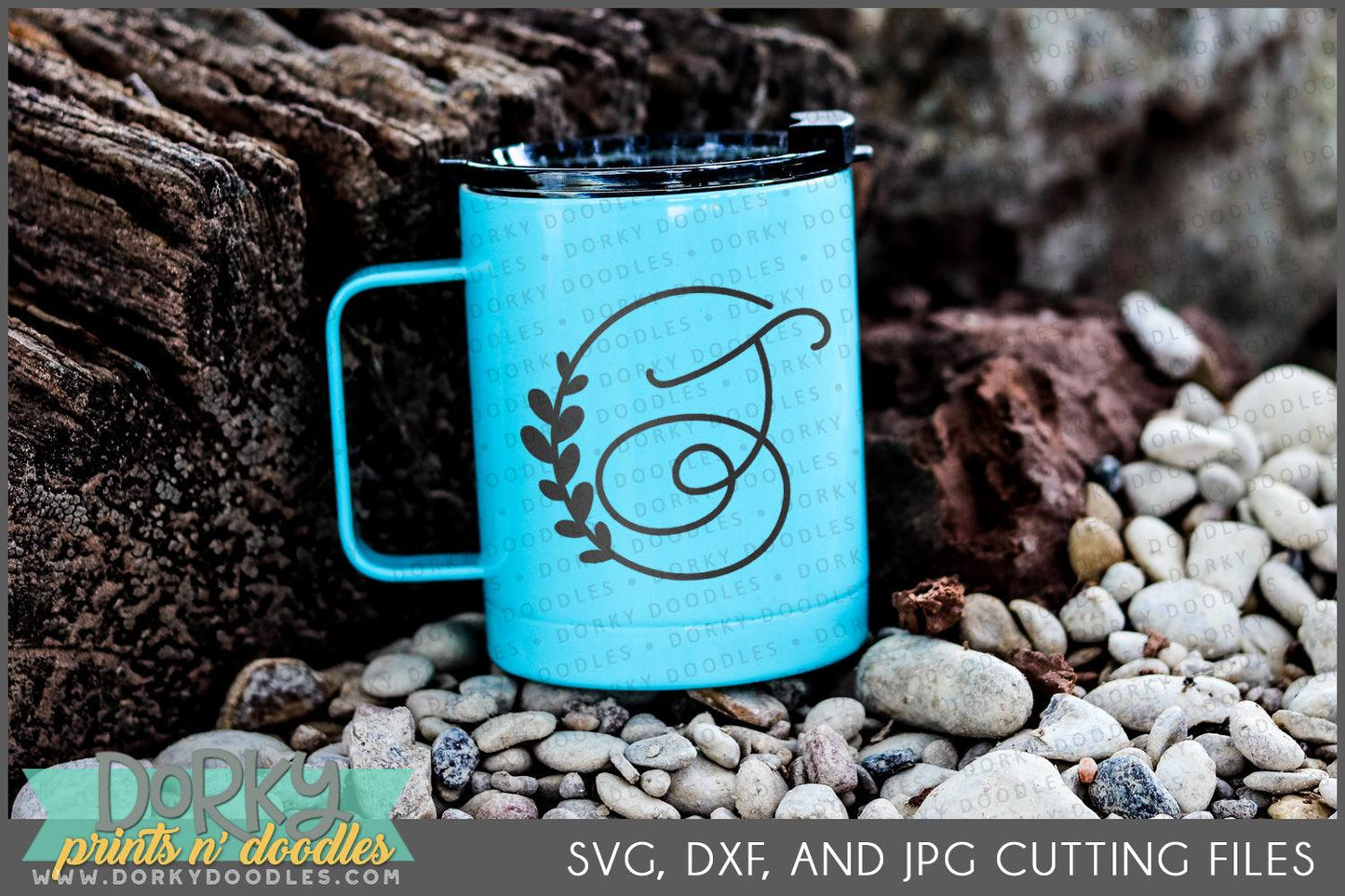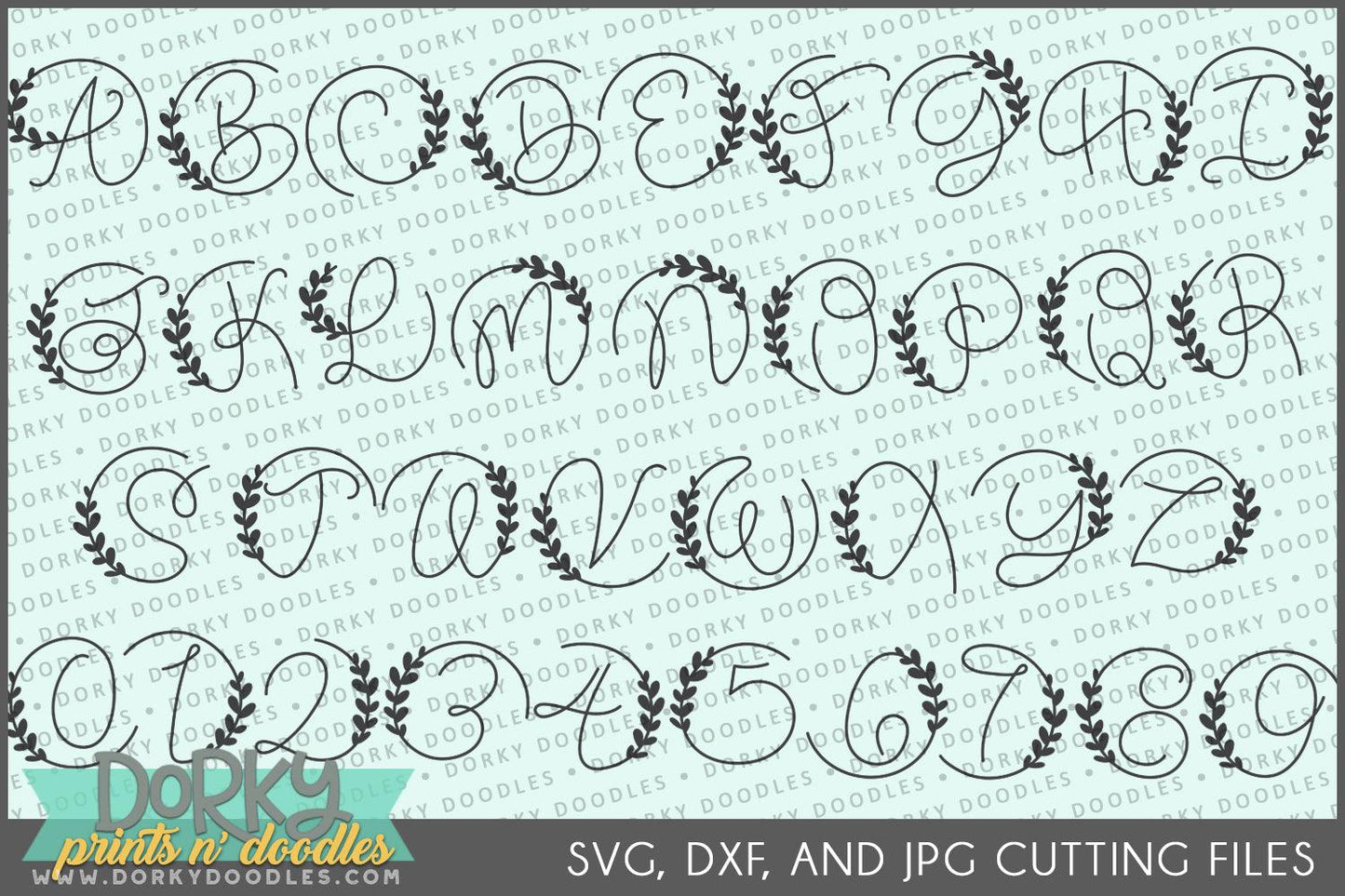
Pretty Font DXF and SVG Cuttable Files
These pretty alphabet and number designs are fun to use and fun to love! The cute farmhouse style is perfect for signs, shirts, waterbottles, and more. There are 36 designs that come as SVG, DXF, and JPG formats so they should work with Silhouette, or Cricut, or whatever type of cutting machine you have!
• Letters a-z featuring circles and laurels
• Numbers 0-9 in partial circle with leaves